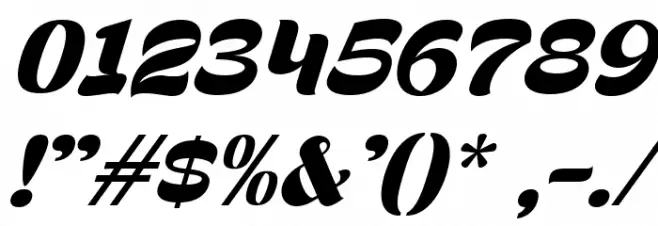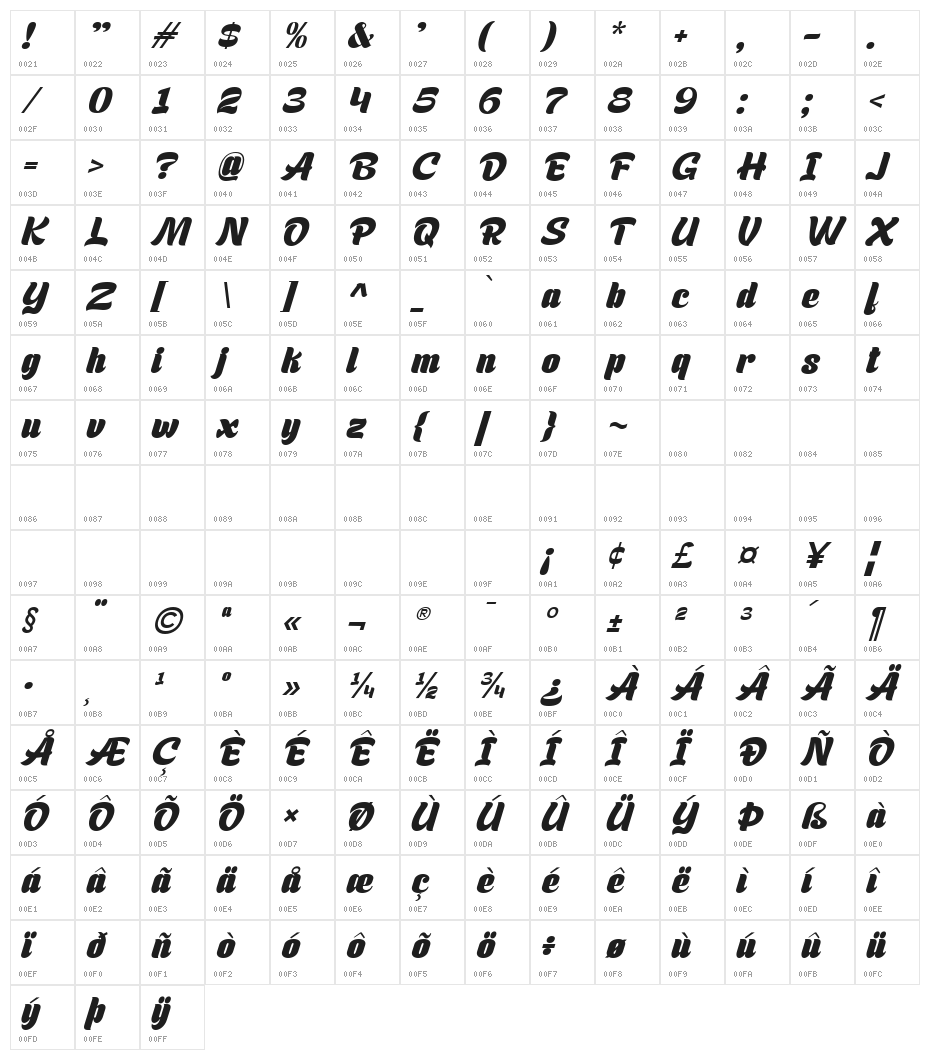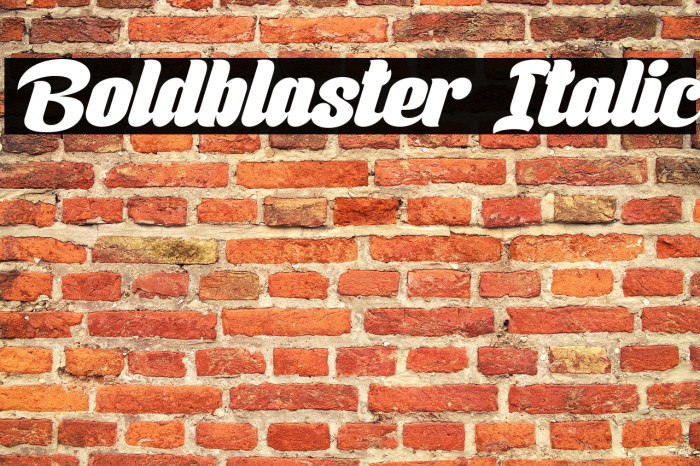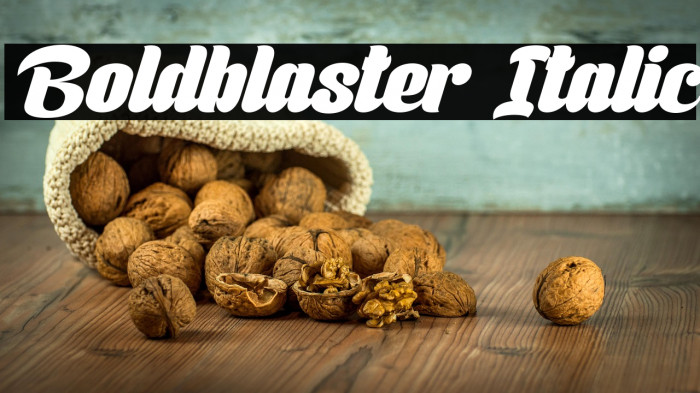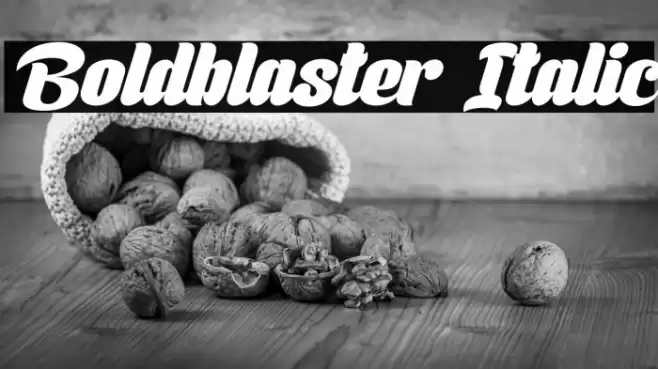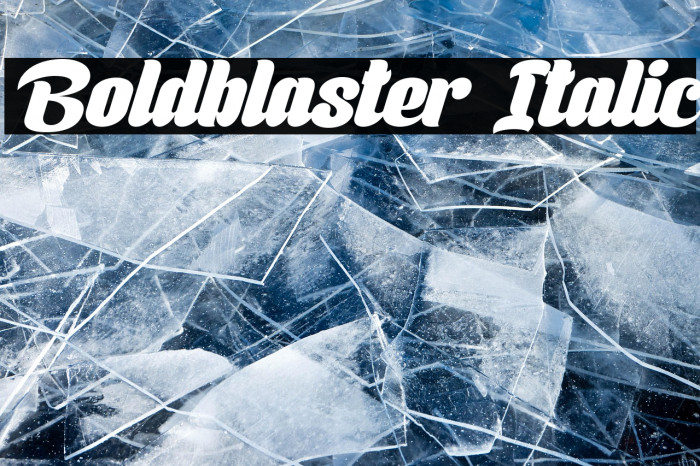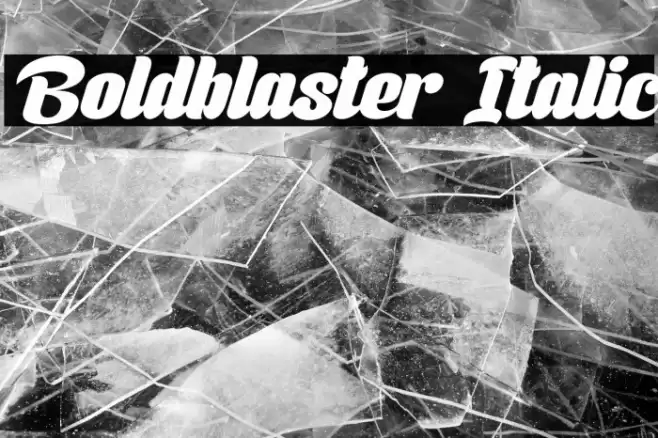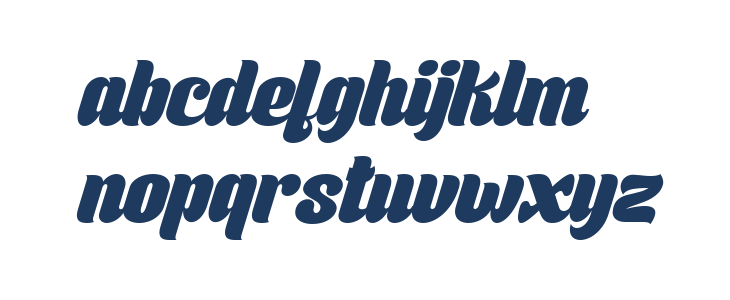
Boldblaster Italic Font
Boldblaster Italic Description
This font features a bold and dynamic style with a strong italic slant, giving it a sense of movement and energy. The characters are thick and robust, with smooth curves and a slightly condensed form. The uppercase letters are prominent and commanding, while the lowercase letters maintain a consistent flow, enhancing readability. The numerals are equally bold, ensuring visibility and impact. Special characters are designed to match the overall boldness, making them suitable for attention-grabbing designs.
| Proposed Projects | Ideal for branding, headlines, posters, and any design requiring a bold statement. |